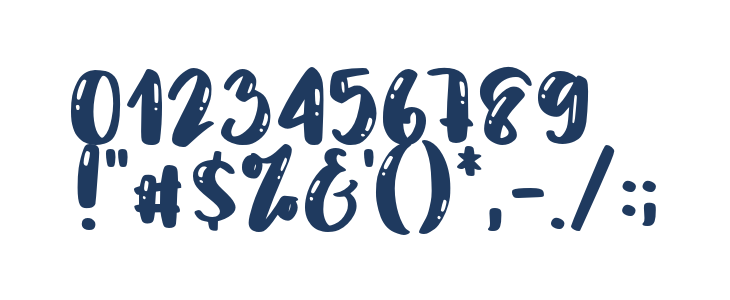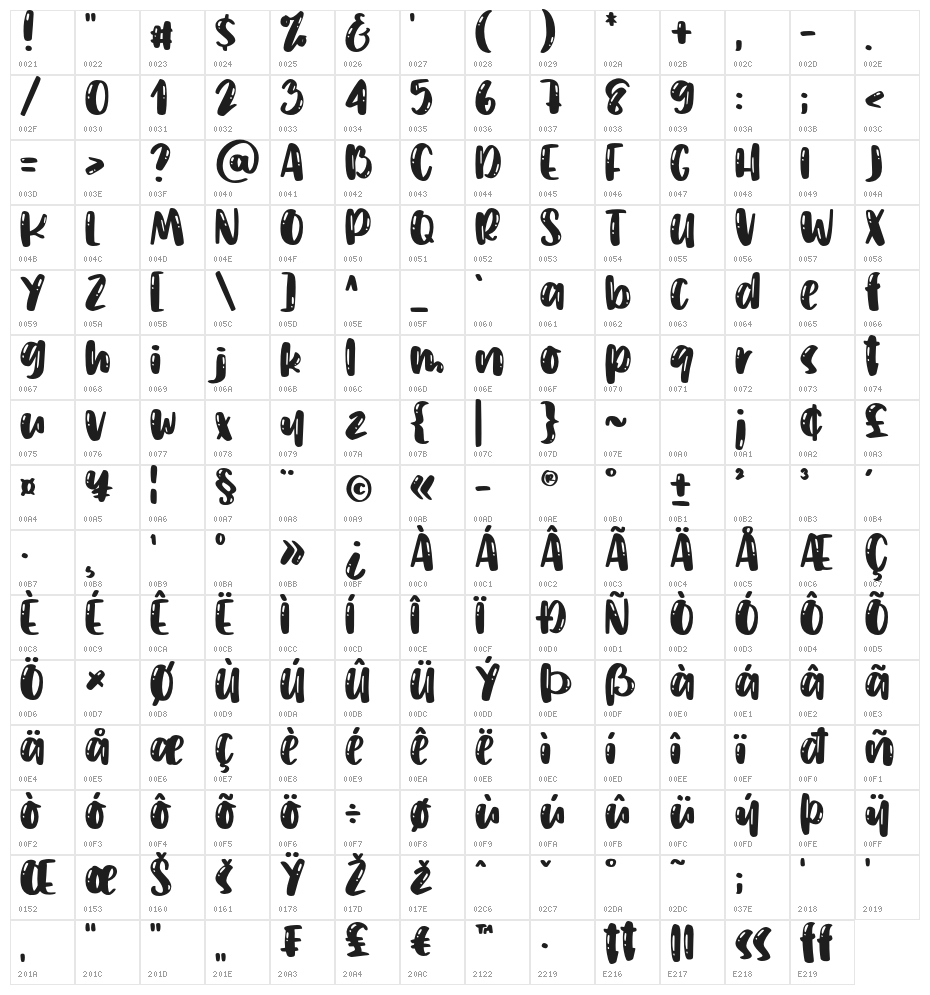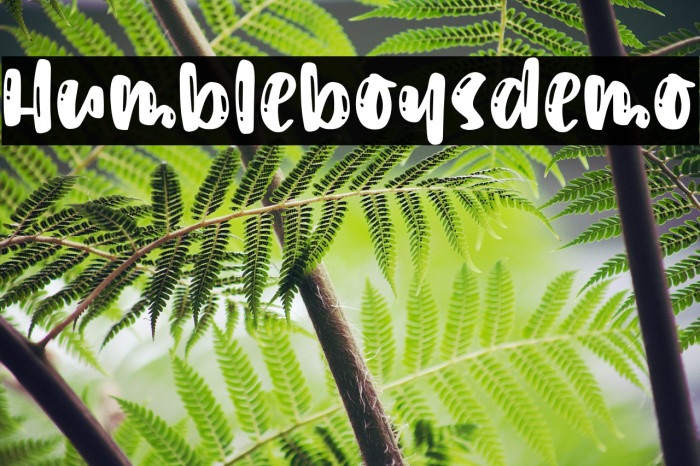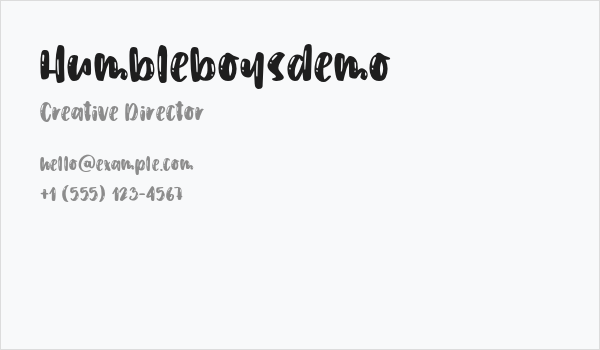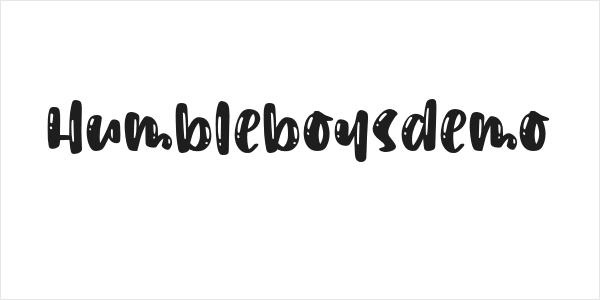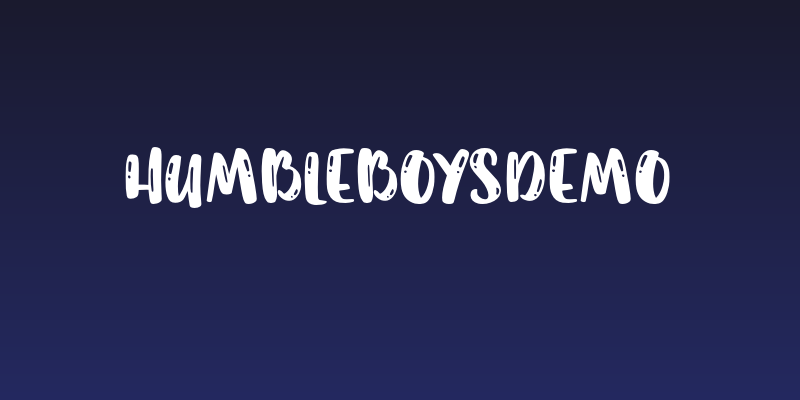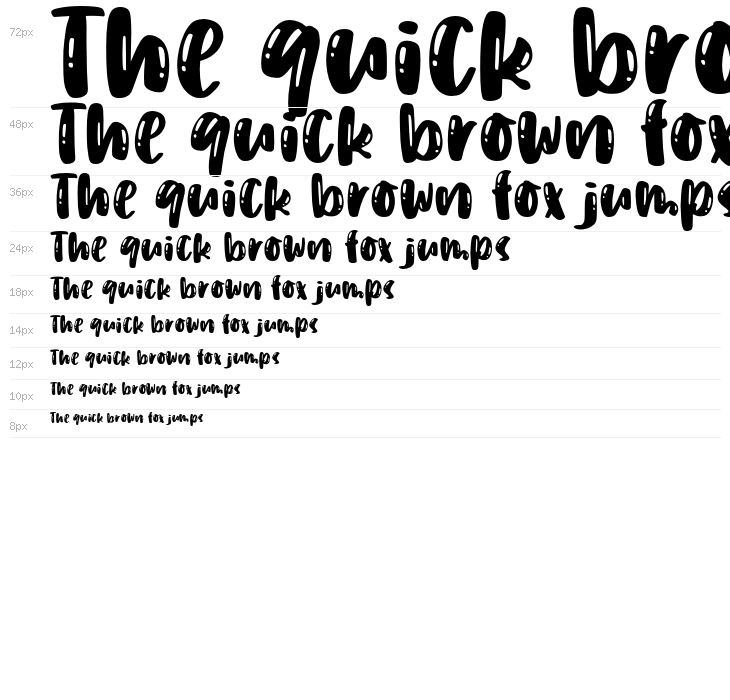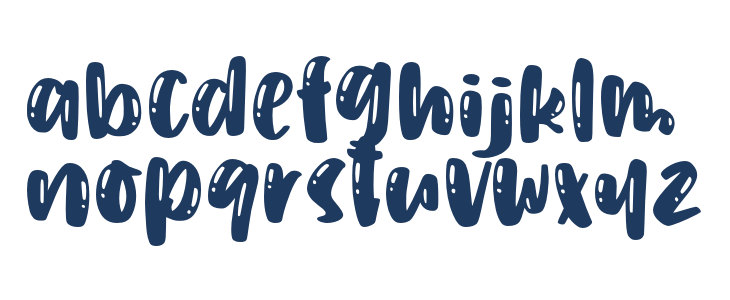
Humbleboysdemo Font
Humbleboysdemo Description
This playful and bold font features a handwritten style with a whimsical touch. Each character is thick and rounded, with a lively and energetic appearance. The letters are adorned with small, playful dots and strokes that add a unique charm. The font maintains a consistent weight throughout, providing a sense of balance and harmony. Its boldness makes it stand out, while the playful elements give it a friendly and approachable feel. The font is perfect for projects that require a fun and engaging look, such as children's books, playful branding, or creative posters.
| Proposed Projects | Ideal for children's books, playful branding, creative posters, and fun invitations. |